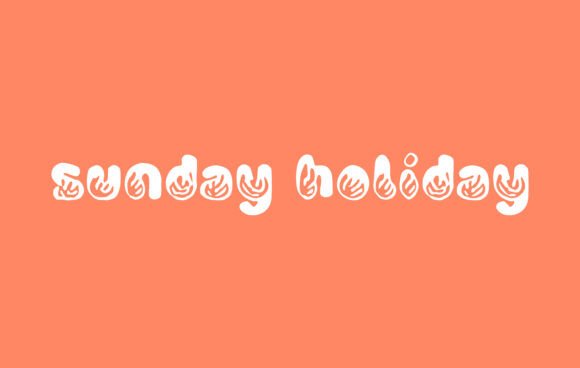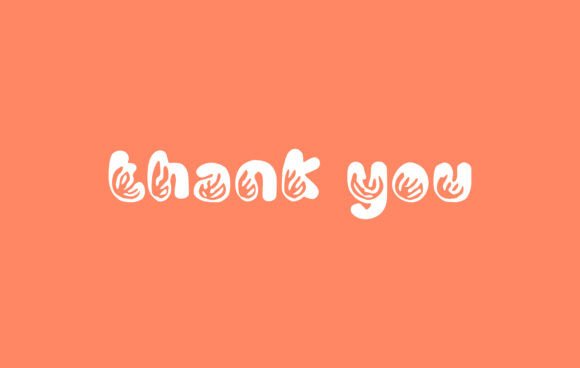
Introduction to Mayapple Font
Have you ever stumbled upon the perfect font that elevates your creative project from ordinary to extraordinary? I know I have, and that’s exactly what the Mayapple Font does. Its authentic handwritten style exudes a romantic touch that’s hard to resist, making it a true favorite among designers.
Imagine being able to convey a sense of whimsy and elegance with just a few strokes of your keyboard. The Mayapple Font makes this possible, with its high-quality design that’s perfect for a wide range of creative endeavors. Whether you’re working on a magazine headline, social media post, or wedding invitation, this font is sure to make a lasting impression.
Key Features of Mayapple Font
- High-quality, professional design ideal for creative projects requiring a unique touch.
- Transparent background option provides versatility for use in various design applications, including logos, graphics, and digital art.
- Available in a range of sizes, including small caps, titling caps, and lowercase letters, to cater to diverse design needs.
- Resolution-independent design ensures crisp and clear typography at various resolutions, from web to print.
- Unique characteristics, such as subtle texture and nuanced letterforms, add an extra layer of depth and visual interest to creative projects.
Honest Review: Mayapple Font
I recently had the chance to work with the Mayapple Font, and I must say it’s been a pleasant experience. This font is perfect for designers who want to add a touch of elegance to their creative project. The high-quality design and clean lines make it ideal for any design resource.
- ✨ Transparent background: The font’s transparent background makes it easy to use with any background image or color.
- ✨ High quality: The font’s design is top-notch, making it perfect for professional projects.
- ⚠️ Limited character set: The font’s character set is limited, which may be a problem for designers who need to use special characters.
- ⚠️ No bold or italic versions: The font only comes in regular weight, which may limit its use in certain situations.
Overall, I’m impressed with the Mayapple Font. It’s a great addition to any designer’s toolkit, and its high-quality design and transparent background make it perfect for creative projects.
Tips for Getting the Most Out of Mayapple Font
Experiment with different font sizes and styles to create a unique design. Use the Mayapple Font in combination with other design resources, such as images and graphics, to create a visually appealing design.
The Mayapple Font is perfect for creating invitations, posters, and other creative projects. Its high quality and unique design make it a great resource for designers and non-designers alike.